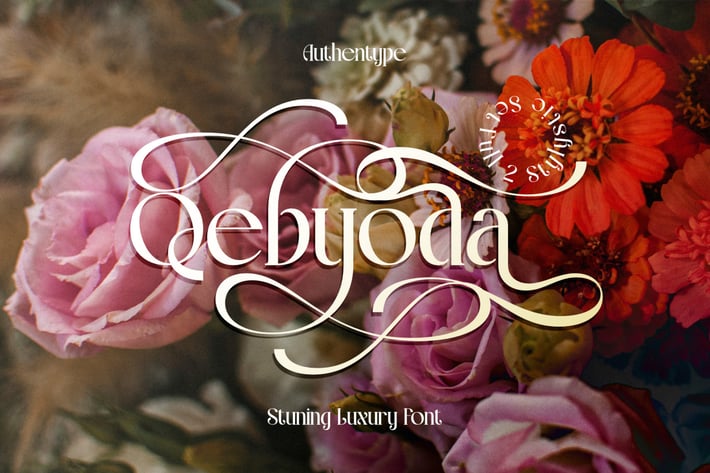
Qebyoda - Elegant Luxury Font
Qebyoda is a stunning luxury font that blends elegance and sophistication. Designed with fluid curves and stylish swashes, it is perfect for branding, invitations, logos, packaging, and high-end design projects. Featuring swash, ligatures, and two stylistic sets. Qebyoda offers versatility and artistic flair, making your typography stand out with a touch of classic charm.
Perfect for:
Brand Identity – Create timeless logos, luxury packaging, and stylish business cards.
Wedding & Event Design – Ideal for invitations, save-the-date cards, and elegant event stationery.
Editorial & Publishing – Enhance book covers, magazine layouts, and premium advertisements.
Fashion & Beauty – A perfect fit for boutique brands, high-end cosmetics, and fashion labels.
Social Media & Digital Content – Make your Instagram posts, YouTube thumbnails, and marketing materials look exquisite.
SPECIAL FEATURES
Ligatures
Includes carefully crafted ligatures for smooth connections (e.g., “ff,” “fi,” “tt,” and more), ensuring visual harmony in typography.
Swash
Yes, Qebyoda features stylized swashes on select letters, adding a touch of style to standout headers or logos.
Stylistic Sets
Offers alternative letterforms and creative variations for select characters, providing flexibility for unique and artistic designs.
Two Alternate Styles
Unlock unique character variations for dynamic typography.
Qebyoda is the ultimate font choice for those seeking a balance between modern luxury and timeless beauty.